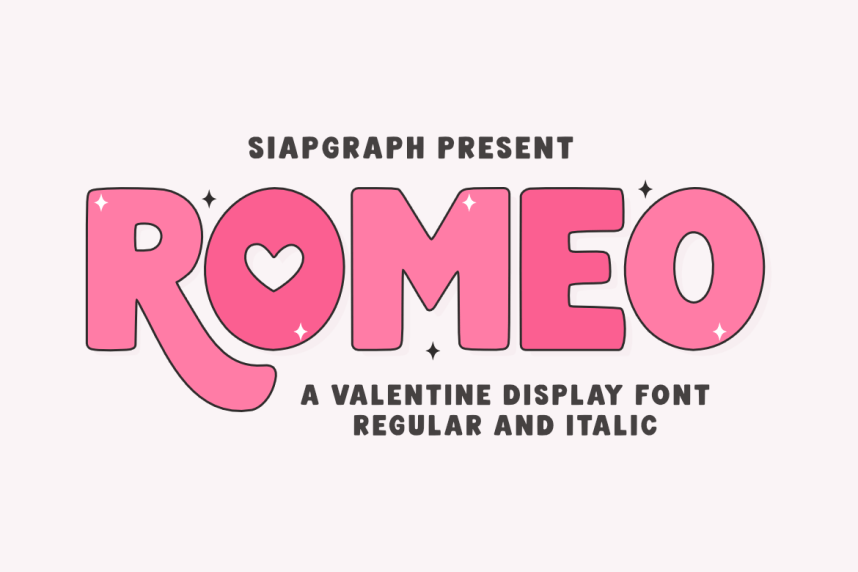
Christmassy Display Font – Display Kids Font, suitable for any projects such as: logos, branding projects, homeware designs, product packaging, mugs, quotes, posters, shopping bags, t-shirts, book covers, name card, invitation cards, greeting cards, label, photography, watermark, special events, and all your other lovely projects that need a beautiful script taste.